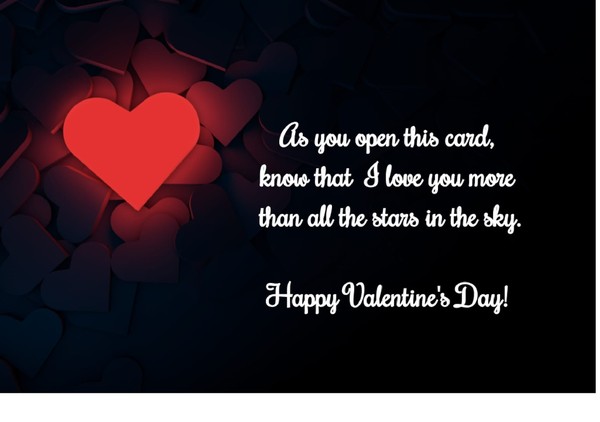
Rochester Font Google Docs Romantic Template
Get ready to fall in love with Rochester Font! This romantic font is perfect for Google Docs templates and will make your projects stand out. With its elegant curves and classic styling, Rochester Font adds a touch of sophistication to any project. Whether you're creating wedding invitations or Valentine's Day cards, Rochester Font is sure to make your projects shine. Get ready to make your projects special with Rochester Font Google Docs romantic template!